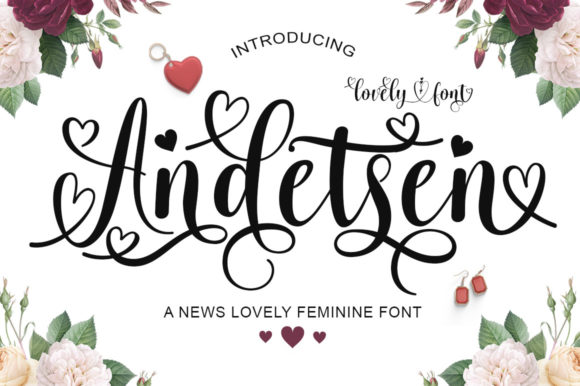
Unleash the Enchantment of Andetsen: A Script Font That Embraces Elegance and Romance
Journey into the realm of exquisite typography with Andetsen, a captivating calligraphy typeface that exudes grace and sophistication. Inspired by the timeless beauty of handwritten scripts, Andetsen dances along the baseline, adding a touch of luxury to every design it graces.
Crafted with meticulous attention to detail, Andetsen's characters possess an inherent elegance, effortlessly evoking a sense of heartfelt emotion and heartfelt stories. Its graceful curves and delicate flourishes lend an air of timeless romance, making it the perfect choice for wedding invitations, love letters, and any project that calls for a touch of enchantment.
With Andetsen, your words will take on a life of their own, leaving a lasting impression on the hearts of your readers. Its PUA encoding makes accessing the font's stunning glyphs and ligatures a breeze, allowing you to effortlessly create stunning compositions that capture the eye and ignite the imagination.
Step into the world of Andetsen and unlock a world of creative possibilities. Let your designs blossom with elegance, let your words dance with grace, and let Andetsen elevate your projects to new heights of beauty and sophistication. Discover the magic of Andetsen today!
Andetsen: Where Elegance Meets Enchantment